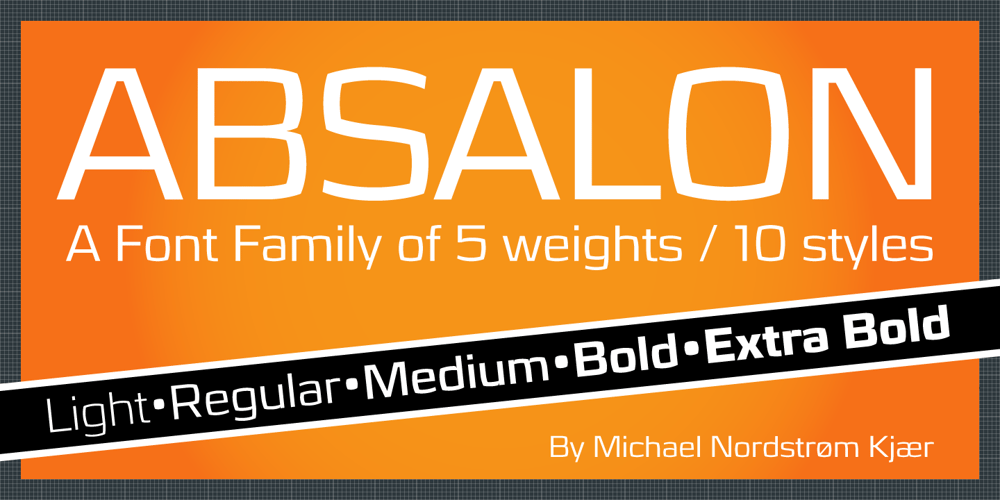
Absalon Font Family was designed by Michael Nordstrøm Kjær and published by Michael Nordstrom Kjaer. Absalon contains 10 styles and family package options. Absalon has square letter shapes. It has some characteristics semi-sharp and semi-rounded corners and it has a relatively tall x-height for legible text. To create the perfect typesetting the spaces between individual letter forms has been precisely adjusted. The Absalon font family is perfect for the web as well as for print, for display as well as longer text, for motion graphics, on the side of a van, t-shirts, logotypes and so on. The font family consist of 5 weights or 10 styles and it has 410 glyphs. A total of more than 4000 glyphs. The styles are: Light, Light Italic, Regular, Italic, Medium, Medium Italic, Bold, Bold Italic, Extra Bold & Extra Bold Italic. It has OpenType features such as automatic fractions, subscript, superscript, numerators, denomerators, ordinals and the “f” ligature set. Absalon has extended language support (most Latin-based scripts are supported). The name of the font family is Absalon and it is a reference to a Danish bishop in the middle ages. He was a key figure in the founding of Copenhagen, the Capital of Denmark.